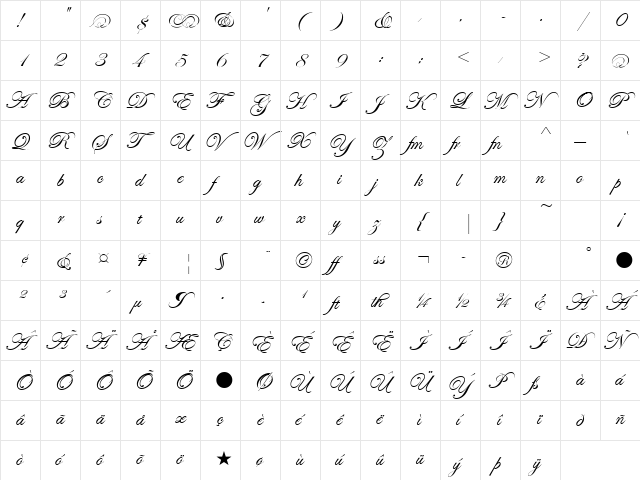
EdwardianScrITC ReguAlte
Design Context for EdwardianScrITC Typeface
EdwardianScrITC is a composed and adaptable typeface that performs quietly and consistently across a wide range of design contexts.